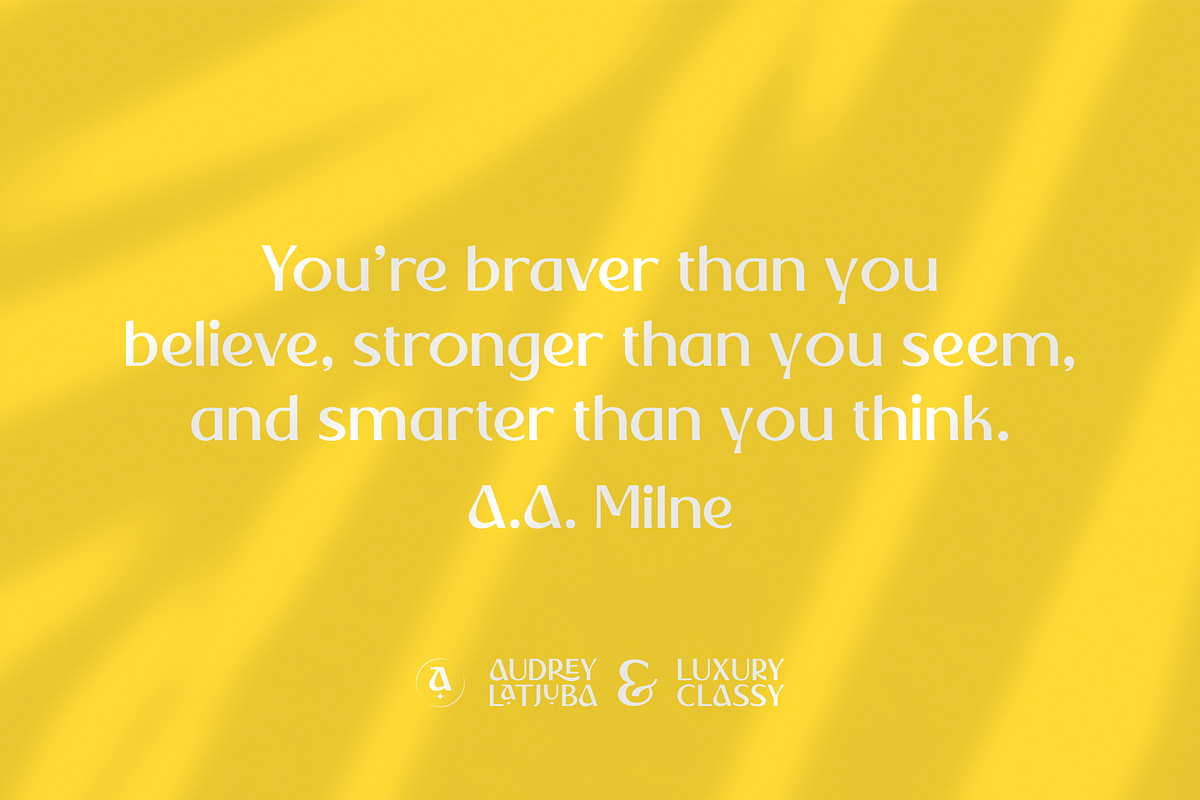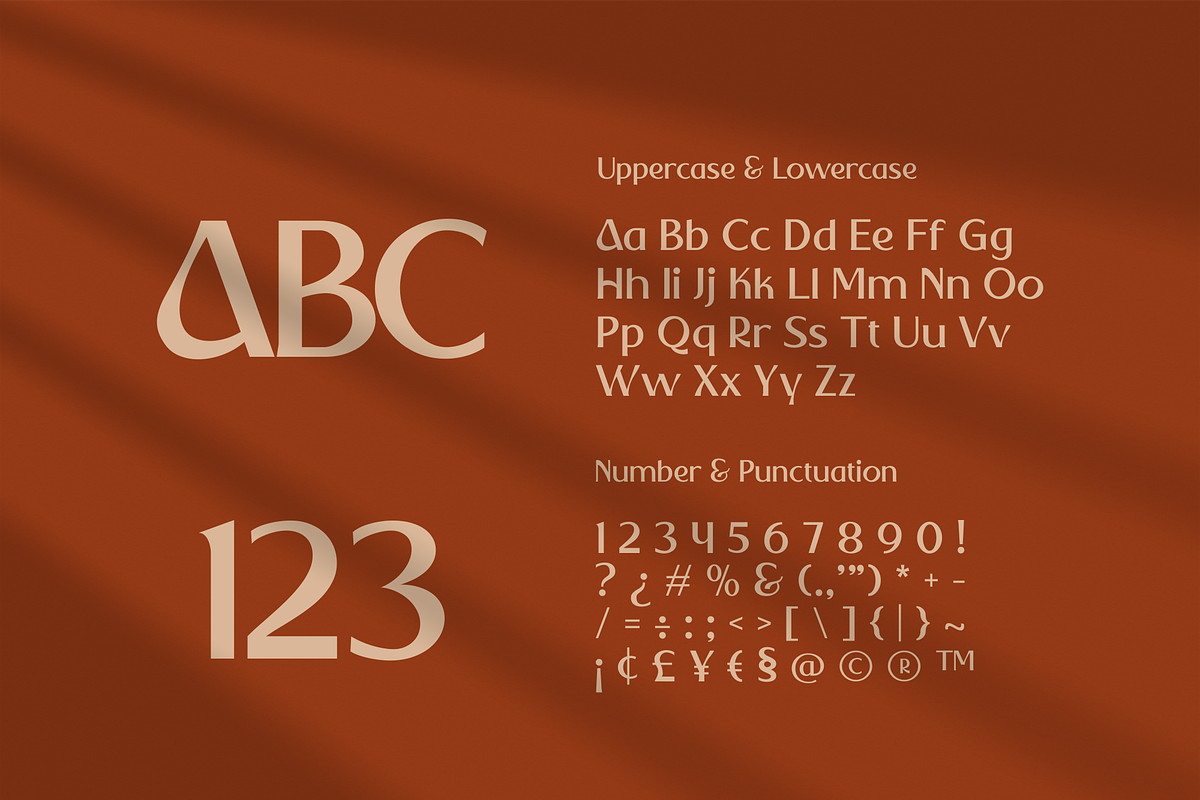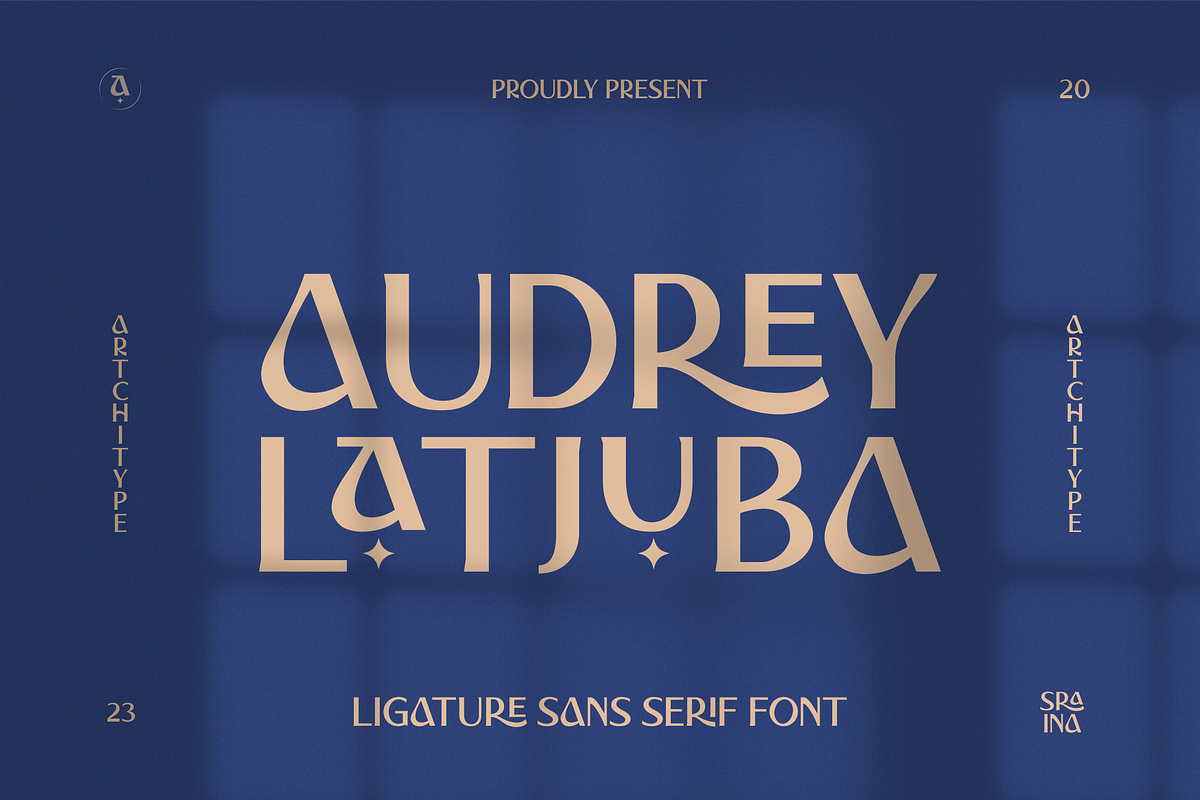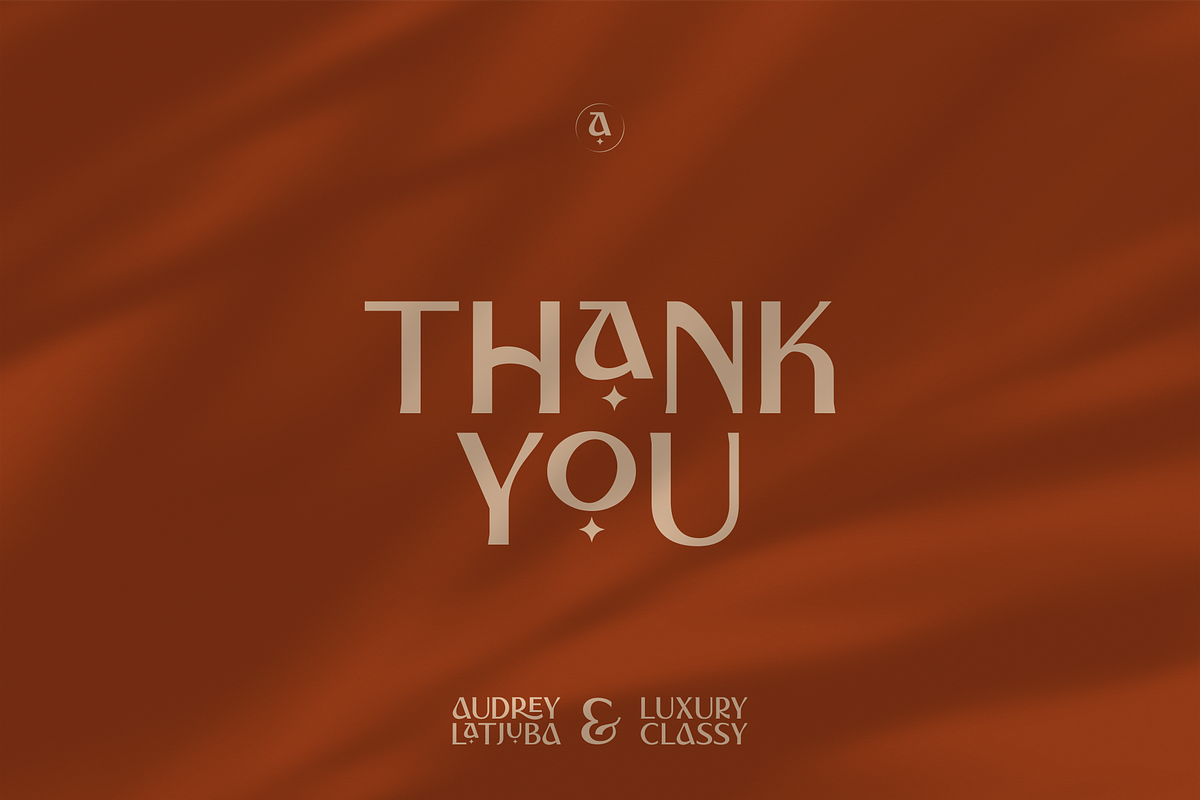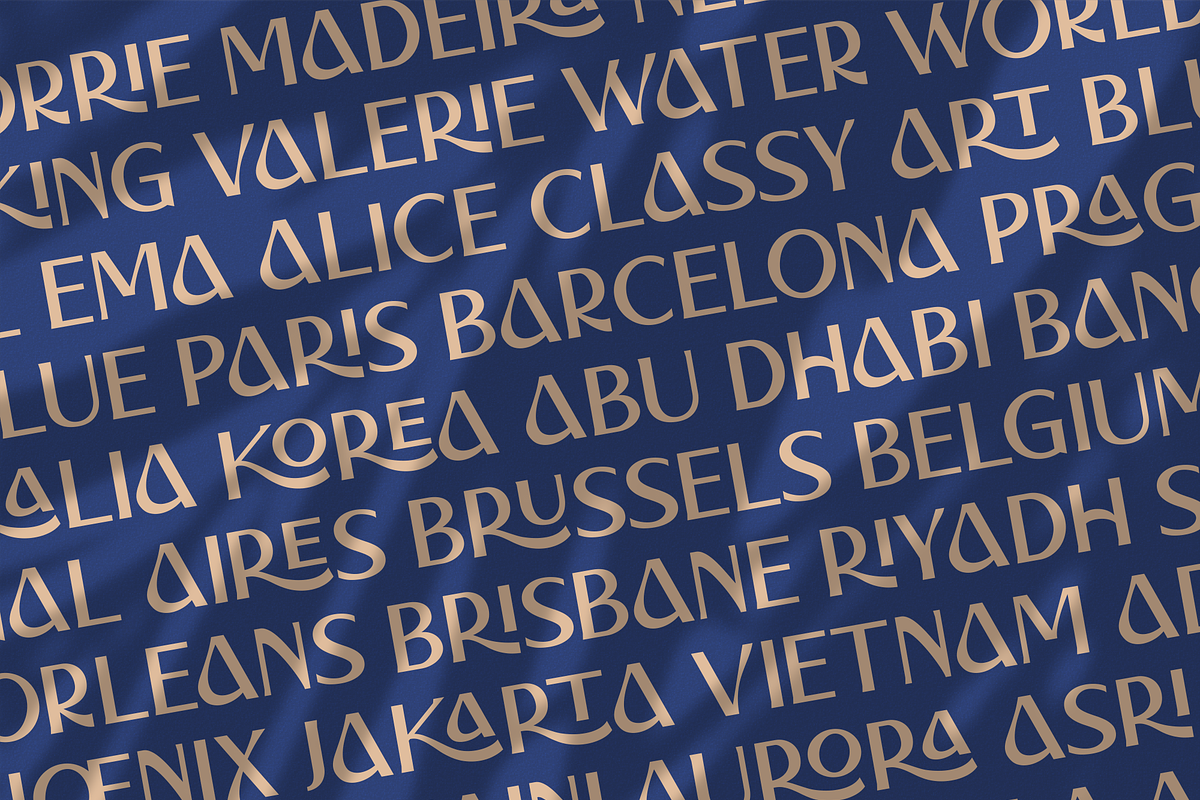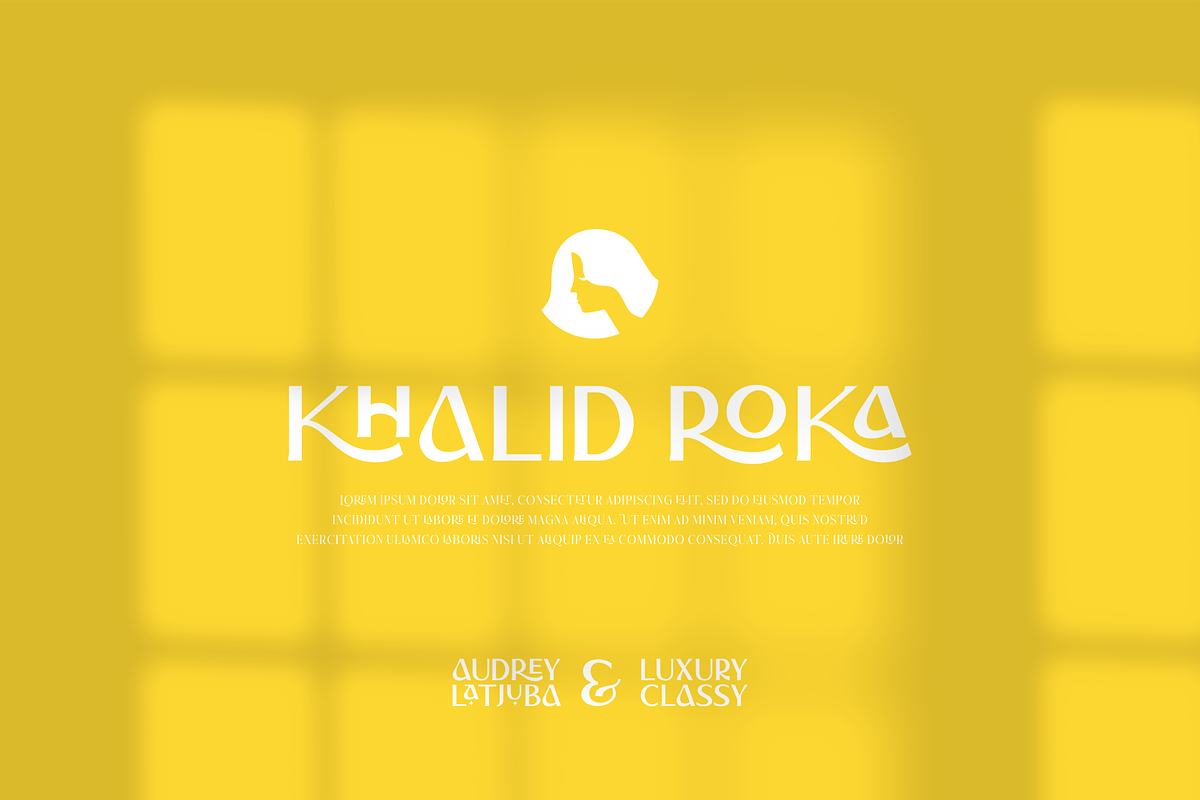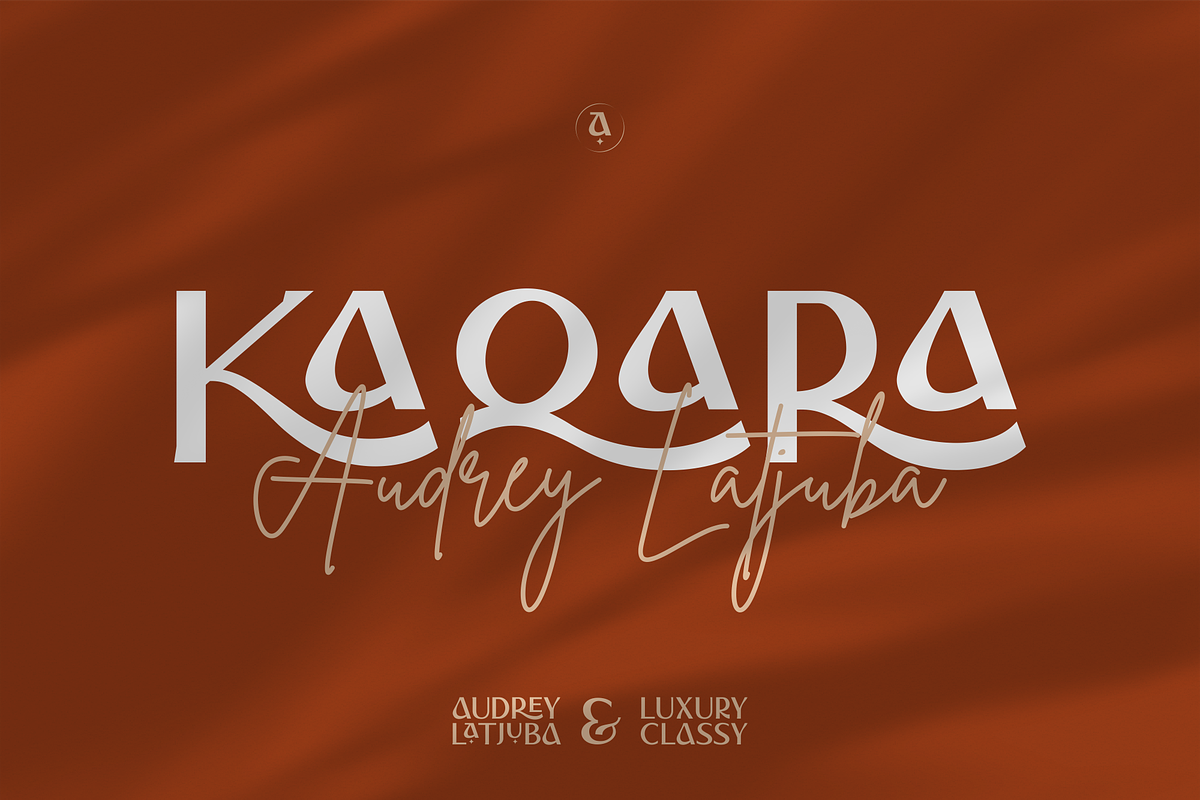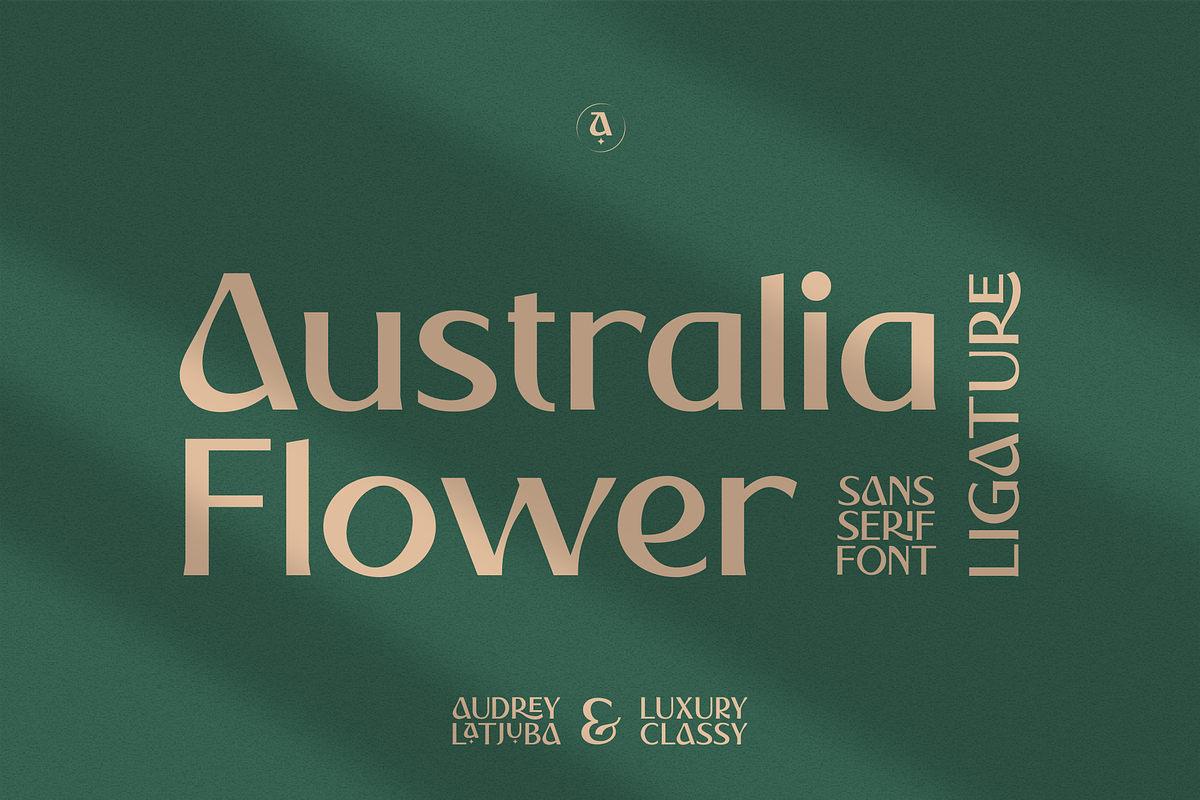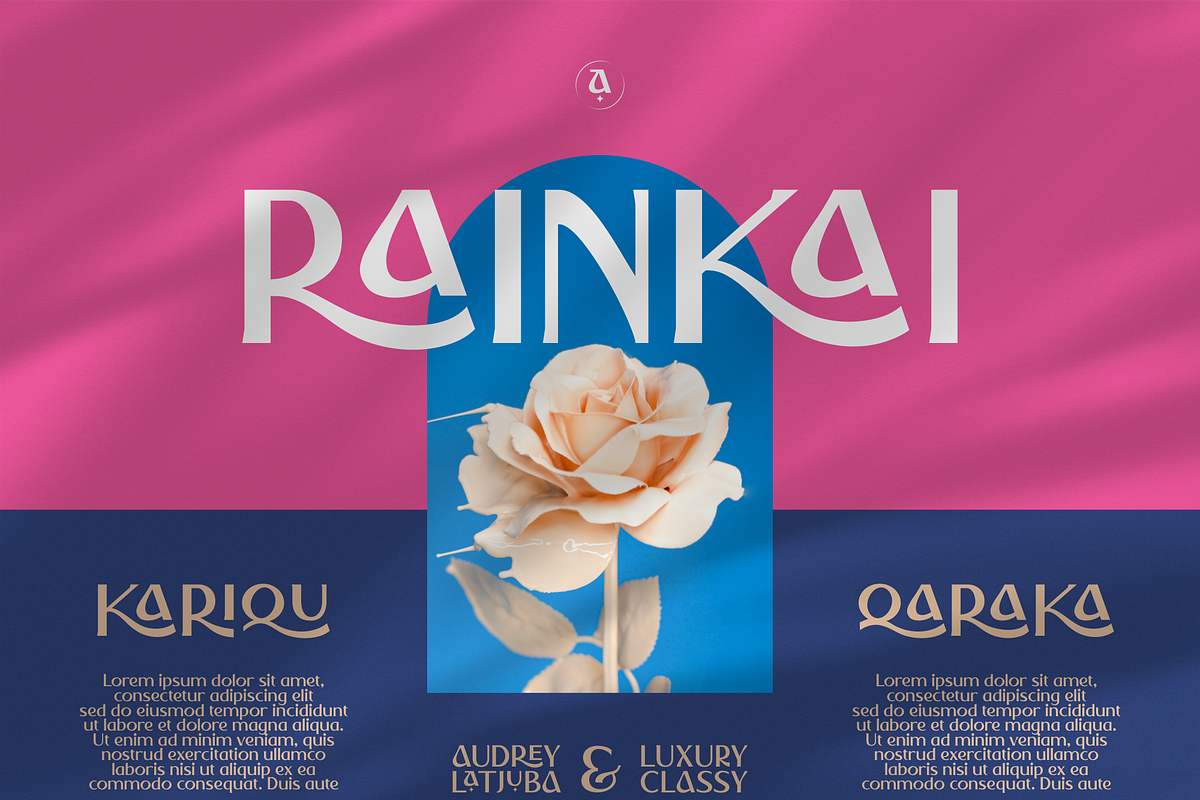
Audrey Latjuba - Sans Serif Font
Audrey Latjuba is classy display sans serif font with 280+ characters. Includes uppercase, lowercase characters, multilingual, alternates and most common other characters.
Audrey Latjuba is perfect for logos, social media posts, product packaging, product designs, and other projects.